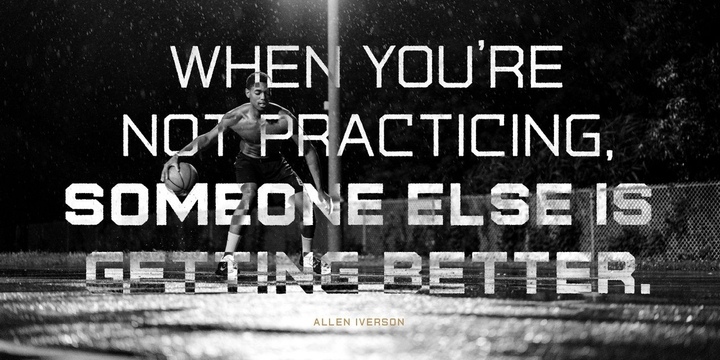
State Wide Rough Font
State Wide Rough Font is perfect for Western movie posters, rodeo event marketing, ranch branding, cowboy bar signage, country music festival graphics, outdoor adventure campaigns, rustic lodge advertising, and American frontier-themed designs.
What makes State Wide Rough Font exciting is its rugged authenticity that captures the spirit of the American frontier and wide-open spaces. The font features weathered letterforms with distressed textures and bold proportions that evoke dusty trails, cattle ranches, and the untamed wilderness of the Old West. Its distinctive rough-hewn character and frontier styling communicate strength, independence, and authentic American heritage, making every message feel forged in the spirit of pioneers and cowboys who built the nation.
The State Wide Rough Font family includes regular weight with uppercase and lowercase letters, numerals, punctuation marks, and special characters. Premium versions often feature additional distressed alternates and decorative elements that enhance the weathered, frontier aesthetic perfect for Western and outdoor applications.
The pioneering character of State Wide Rough Font makes it particularly effective for Western entertainment venues, outdoor equipment retailers, and heritage tourism marketing. Its excellent visibility ensures event information and promotional messaging capture attention while maintaining the distinctive frontier aesthetic that appeals to audiences seeking authentic American experiences and rugged adventure.
Western marketers and event designers appreciate how State Wide Rough Font effortlessly conveys frontier authenticity and American spirit. The font's bold proportions and weathered details create powerful brand materials that establish connections with audiences passionate about Western culture, outdoor adventure, and traditional American values.
The versatile frontier appeal of this typeface extends to bourbon distilleries, motorcycle rallies, and men's lifestyle brands where rugged authenticity enhances brand credibility. State Wide Rough Font Free Download provides creative professionals with an essential tool for developing memorable, heritage-driven designs that resonate with audiences who embrace American frontier spirit, outdoor adventure, and the enduring appeal of Western authenticity in their entertainment and lifestyle choices.